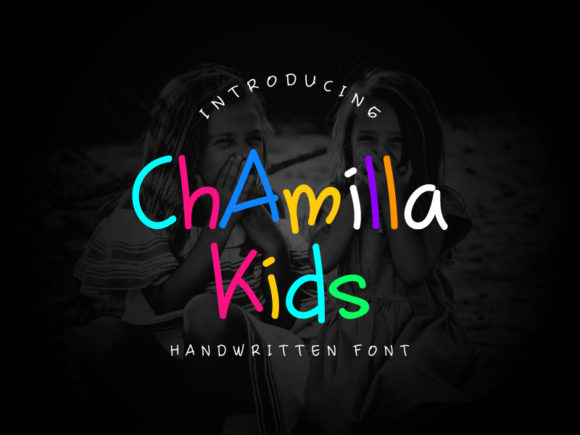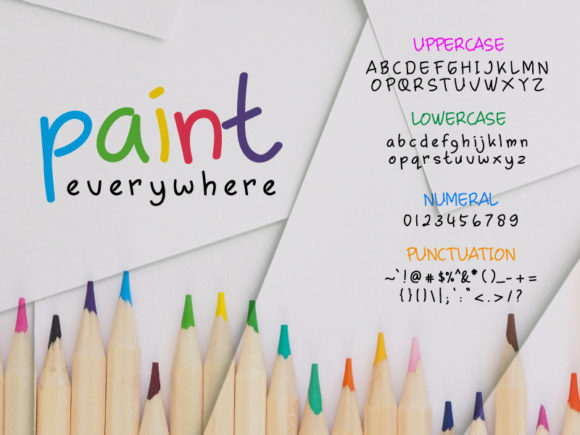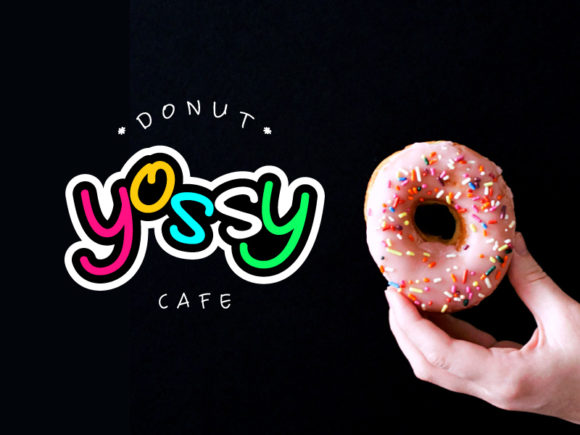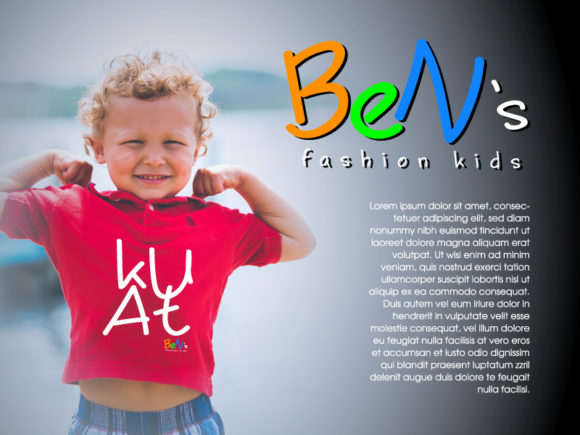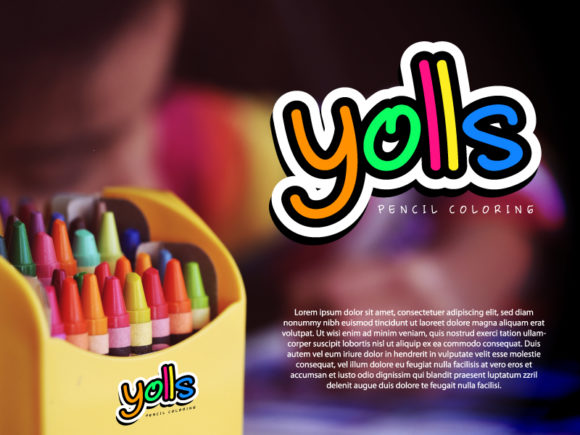
Chamilla Kids Font
About Chamilla Kids Font
Chamilla Kids is a beautiful yet playful handwritten font with a bold feel. It will turn any design project into a stand our!